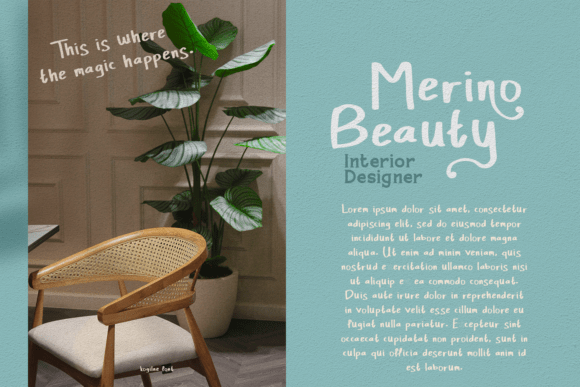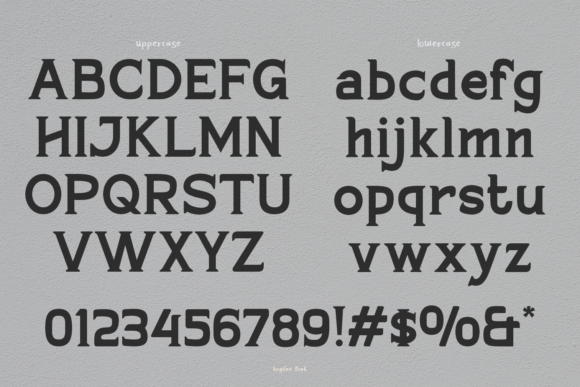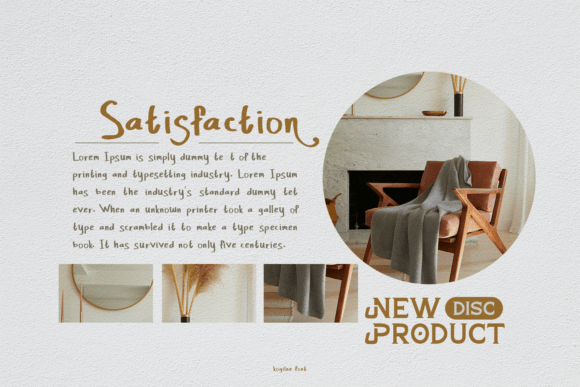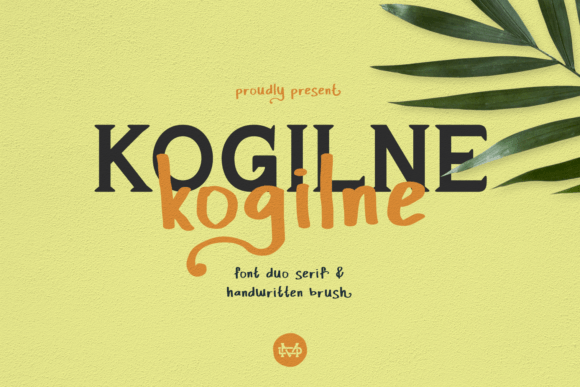
Introduction to Kogilne Duo Font
Kogilne elegant and luxurious Duo serif font combined with natural handwriting.
This font has a minimalist and simple look However, this font brings a luxurious and attractive style to modern logos, websites, social media quotes, wedding stationery, and more.